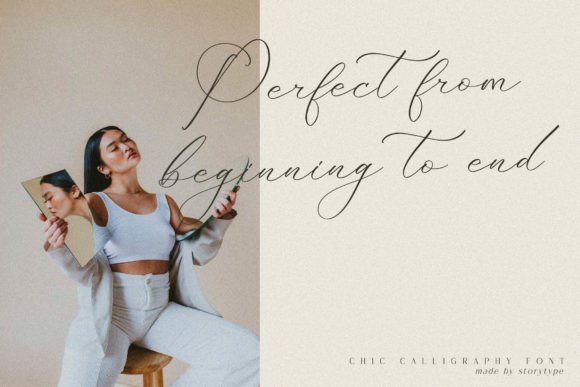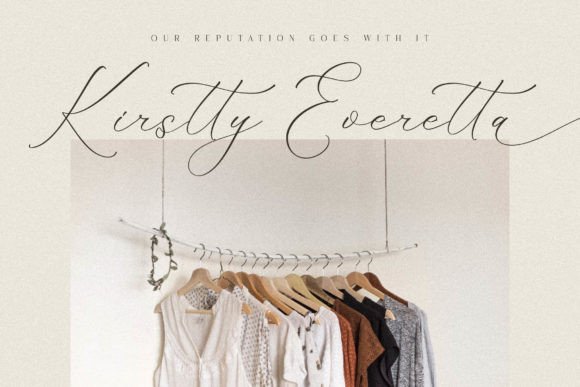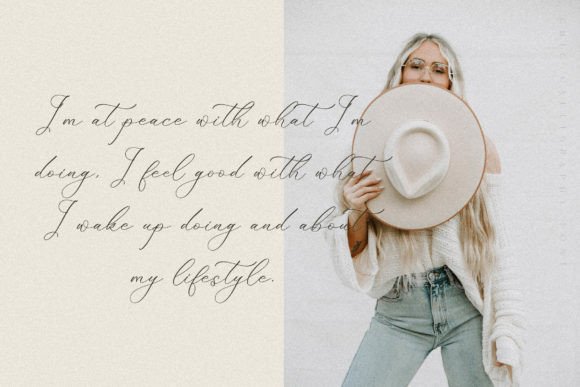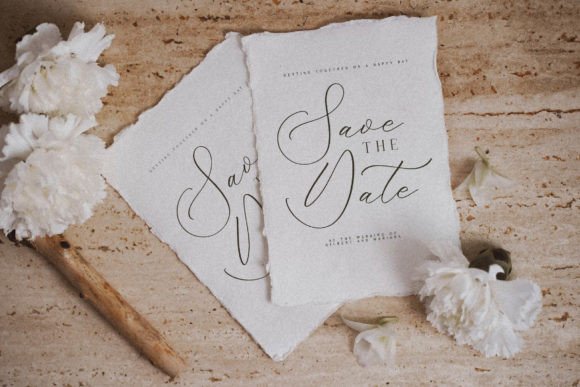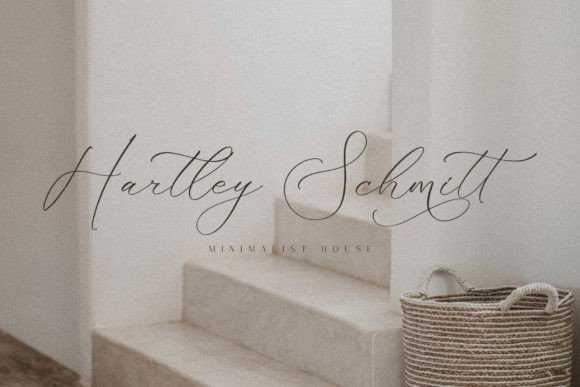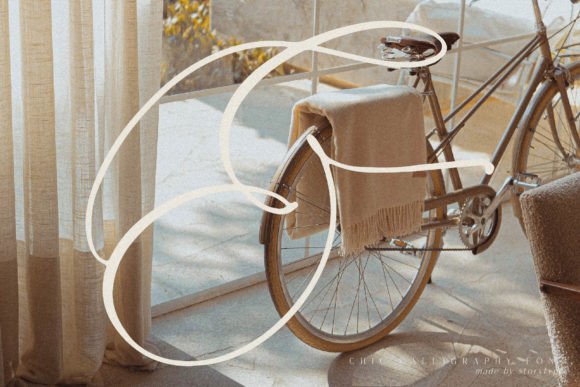
Unlocking the Art of Elegant Typography
Have you ever been stuck trying to convey the essence of luxury and sophistication through a design? You know, that moment when you’re brainstorming ideas for a high-end fashion brand or a chic movie title, and nothing seems to fit the bill. The struggle is real, but fear not, dear designers! We’ve got just the solution for you.
Meet the Fattrios Schudnel Font, a chic calligraphy script font that exudes modernity and elegance. Perfect for creating stunning logos, book titles, magazine covers, and more, this versatile font is a game-changer for designers looking to add a touch of sophistication to their projects. Whether you’re working on a fashion brand, a luxury magazine, or a high-end product, the Fattrios Schudnel Font is sure to elevate your design to new heights.
Fattrios Schudnel Font Key Features
- Font Family: Fattrios Schudnel is a unique, custom-designed font family.
- Unique Characteristics: Fattrios Schudnel features an unconventional, hand-drawn aesthetic with intricate details and flourishes.
- Font Style: The font family includes multiple weights and styles, including bold, italic, and regular, allowing for a wide range of typographic expressions.
Fattrios Schudnel Font Review
I recently had the chance to work with the Fattrios Schudnel Font, and I must say, it’s a mixed bag. Here’s my honest review:
- ✨ Unique and quirky design: The Fattrios Schudnel Font has a distinct, hand-drawn feel that sets it apart from more common fonts.
- ✨ Great for creative projects: If you’re working on a project that requires a touch of whimsy or playfulness, this font is a great choice.
- ✨ Good for short text: The font’s larger size and bold lines make it perfect for short text snippets, like titles or headings.
- ⚠️ Limited legibility: At smaller font sizes, the Fattrios Schudnel Font can become difficult to read, especially for longer blocks of text.
- ⚠️ Not suitable for body text: Due to its unique design and limited legibility, this font is not well-suited for large amounts of body text.
The Fattrios Schudnel Font is a fun, creative option for projects that require a unique touch. While it has some limitations, it’s a great choice for short text snippets or titles. Just be sure to use it judiciously and pair it with a more legible font for body text.
Tips for Getting the Most Out of Fattrios Schudnel Font
To get the most out of the Fattrios Schudnel font, experiment with different font sizes, colors, and styles. Use this font for headings and titles to create a unique and attention-grabbing design. You can also use this font for body text to add a touch of elegance and sophistication.
The Fattrios Schudnel font is particularly useful for creating unique headings and titles in graphic design projects. It is also great for creating attention-grabbing presentations and documents. This font is perfect for designers who want to add a touch of elegance and sophistication to their designs.